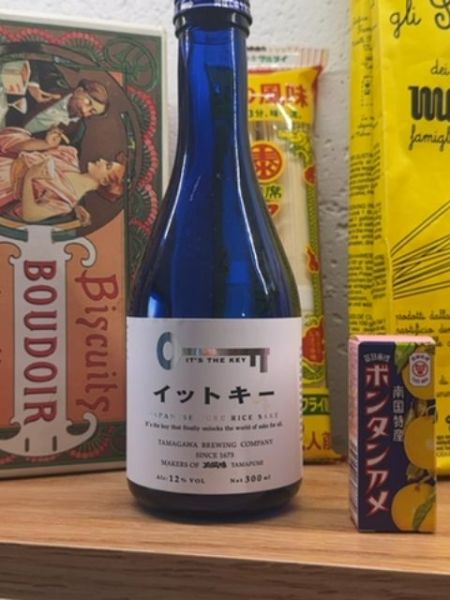
IT'S THE KEY
A type of rice sake, an alcoholic beverage made from fermented rice, typically consumed in Japan and around the world.
The typography on the label is a clean sans-serif font, lending a modern touch to the traditional product. The mix of English and Japanese characters is balanced and speaks to both local and international appeal. The font used for 'IT'S THE KEY' has a bold weight, making it stand out prominently.
The bottle is a sleek, deep blue with a minimalist white label that wraps around the midsection. This contrast emphasizes the elegance and traditional aesthetic of the product.
- The sake is labeled with 12% alcohol by volume.
- Produced by Tamagawa Brewing Company.
- The label suggests a specialty and artisanal brewing process.